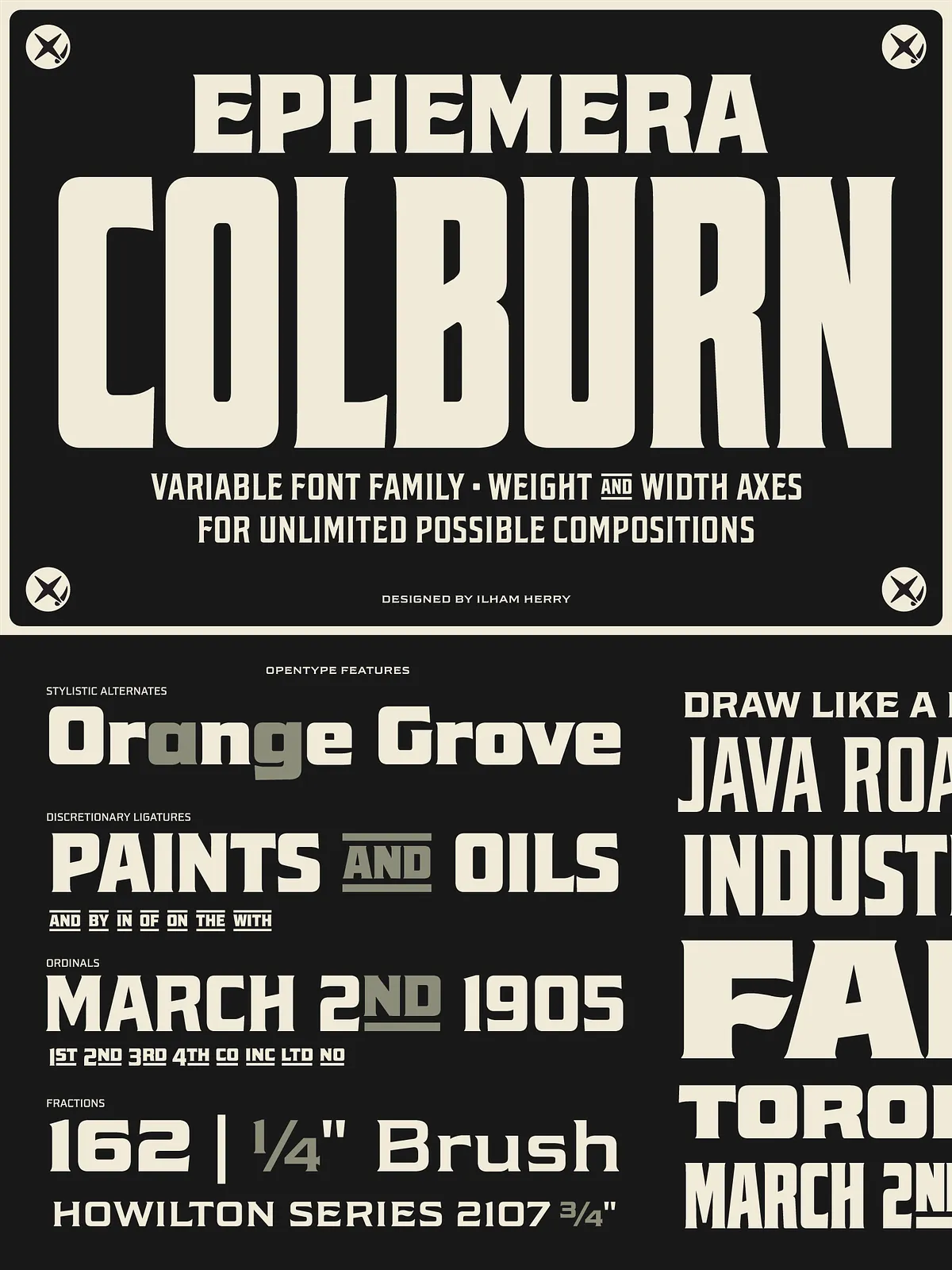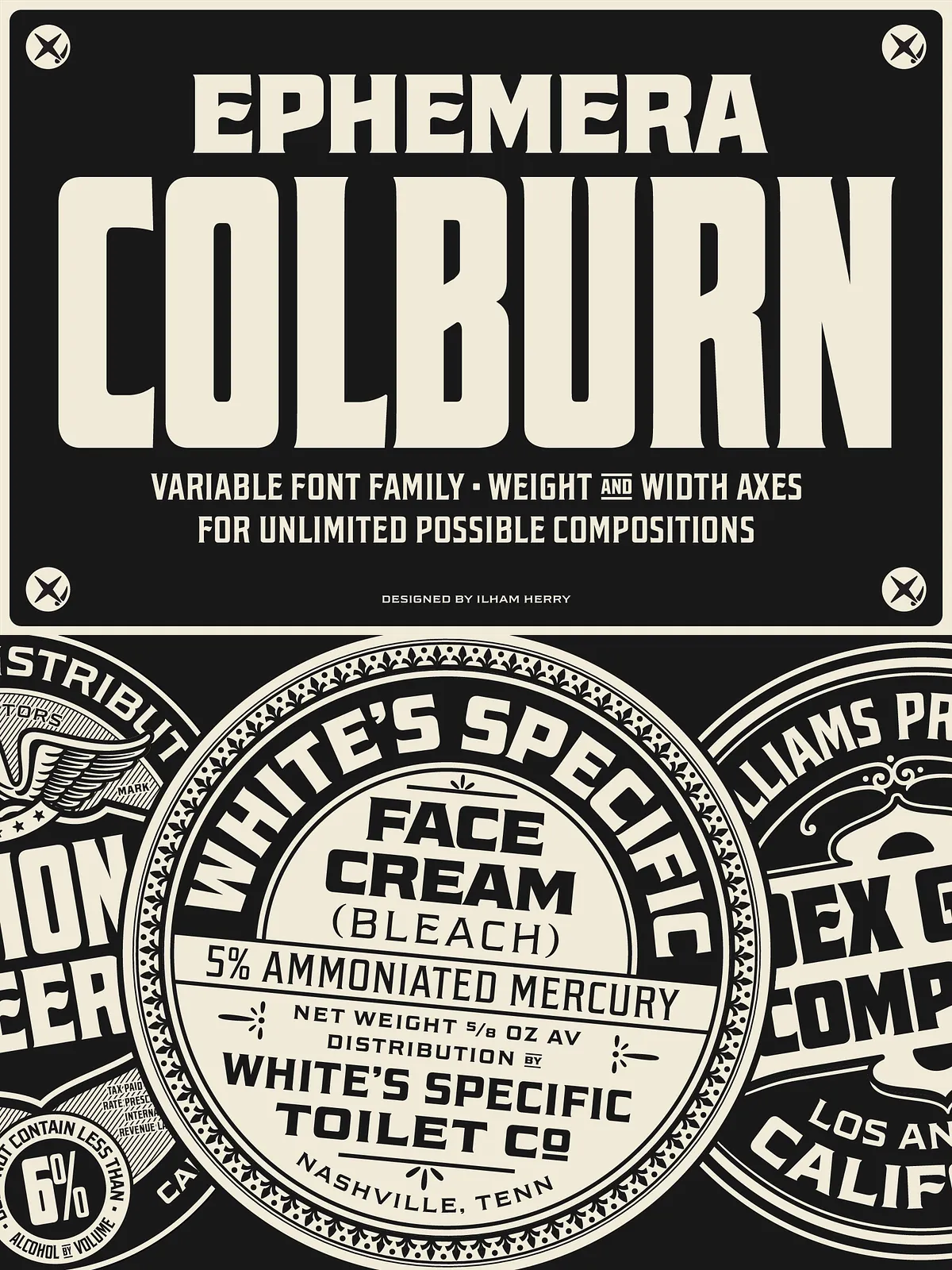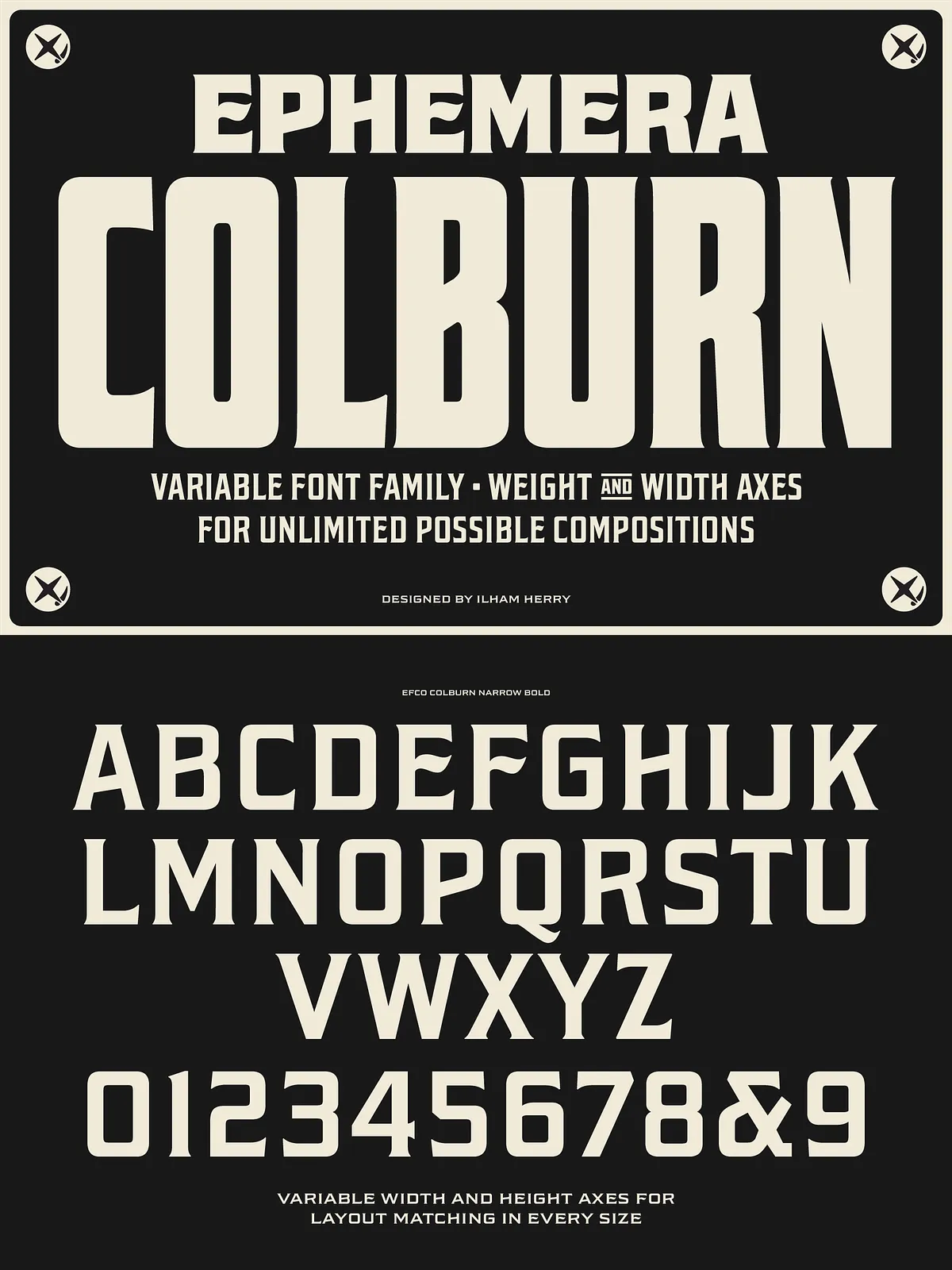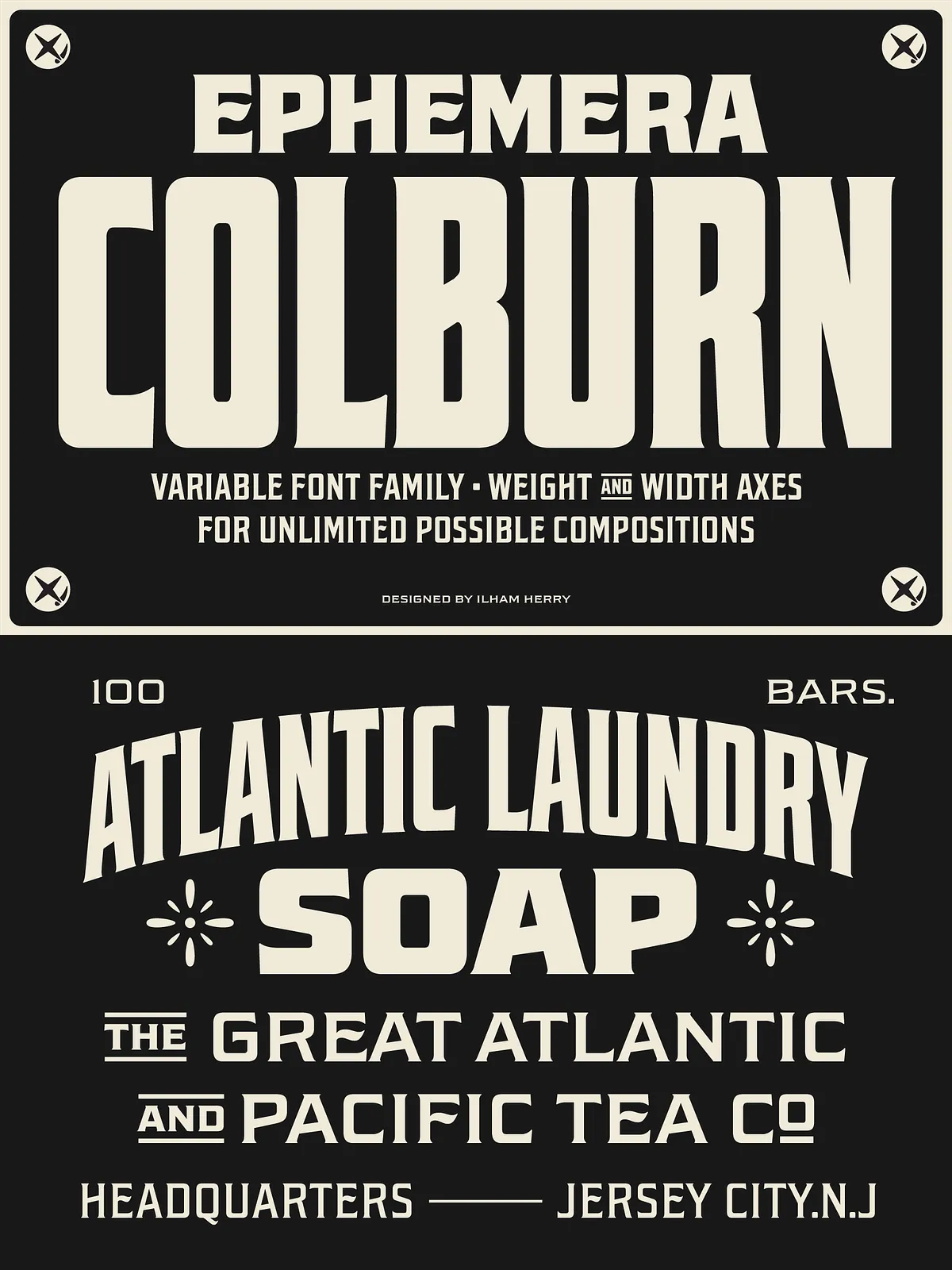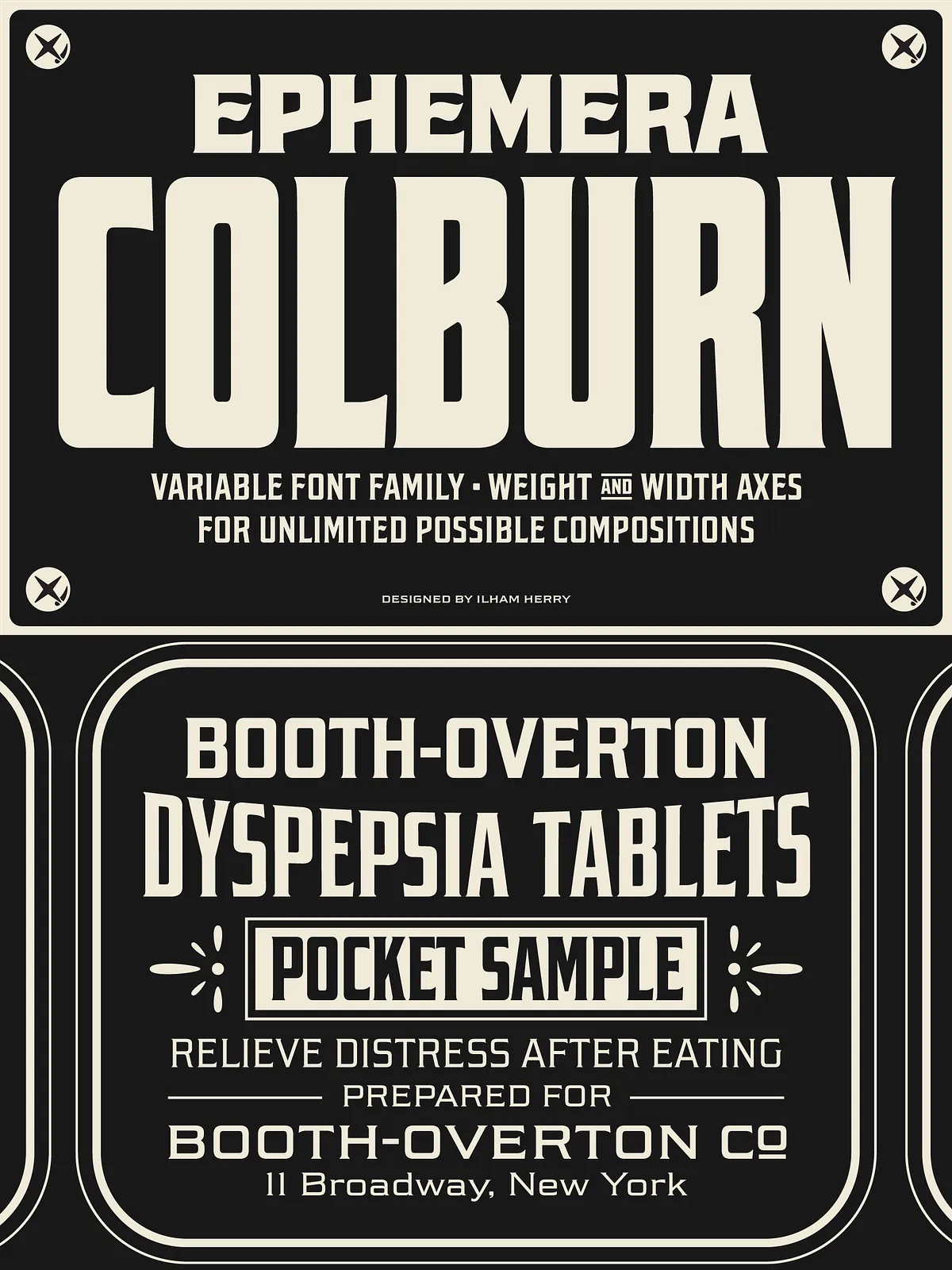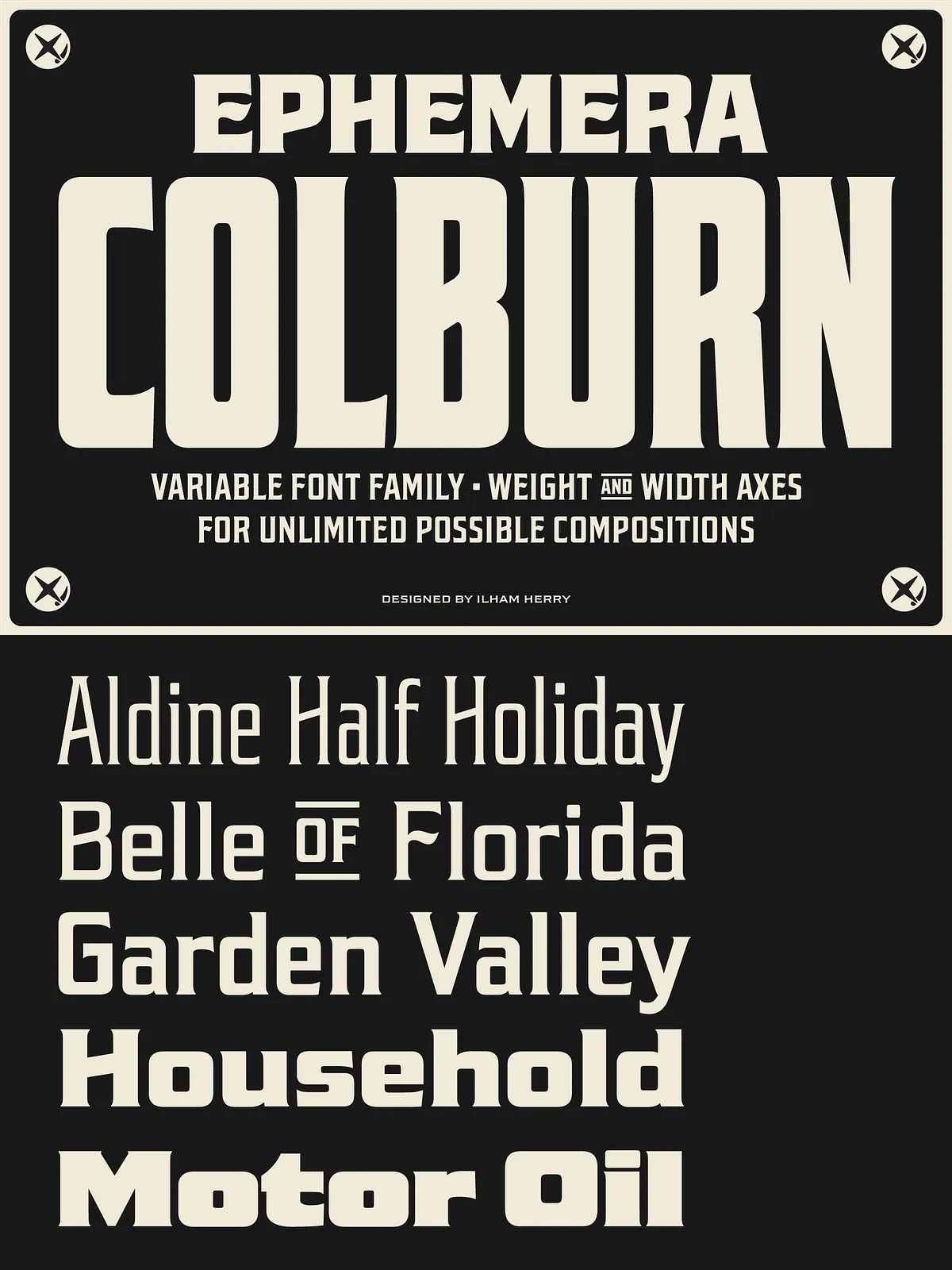
Colburn is a squarish typeface inspired by lettering found on vintage tins, with an expansive range of styles, from compressed to extended, Colburn is a display typeface that captures the essence of nostalgia while offering modern versatility. The uniform square shapes provide a solid foundation, lending the font a sense of stability and strength.
With a wide spectrum of weights and widths, you can effortlessly mold this versatile typeface to suit any project or mood. Colburn’s variable font technology ensures seamless transitions between different styles, empowering you to create dynamic and harmonious compositions. From packaging and posters to websites and branding materials.